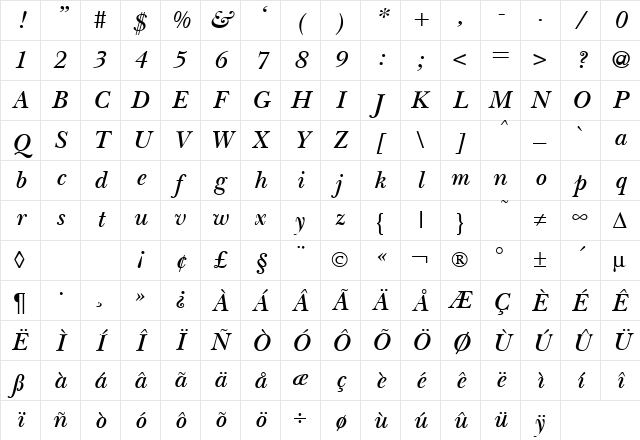
BaskervilleNovaTwoDemi RegularItalic
Design Context for BaskervilleNovaTwoDemi
BaskervilleNovaTwoDemi is a composed and adaptable typeface that performs quietly and consistently across a wide range of design contexts. The slanted form adds forward momentum and visual energy.
Pro Tip: Use BaskervilleNovaTwoDemi for emphasis, pull quotes, and subheadings where its slanted energy can add rhythm to the layout.